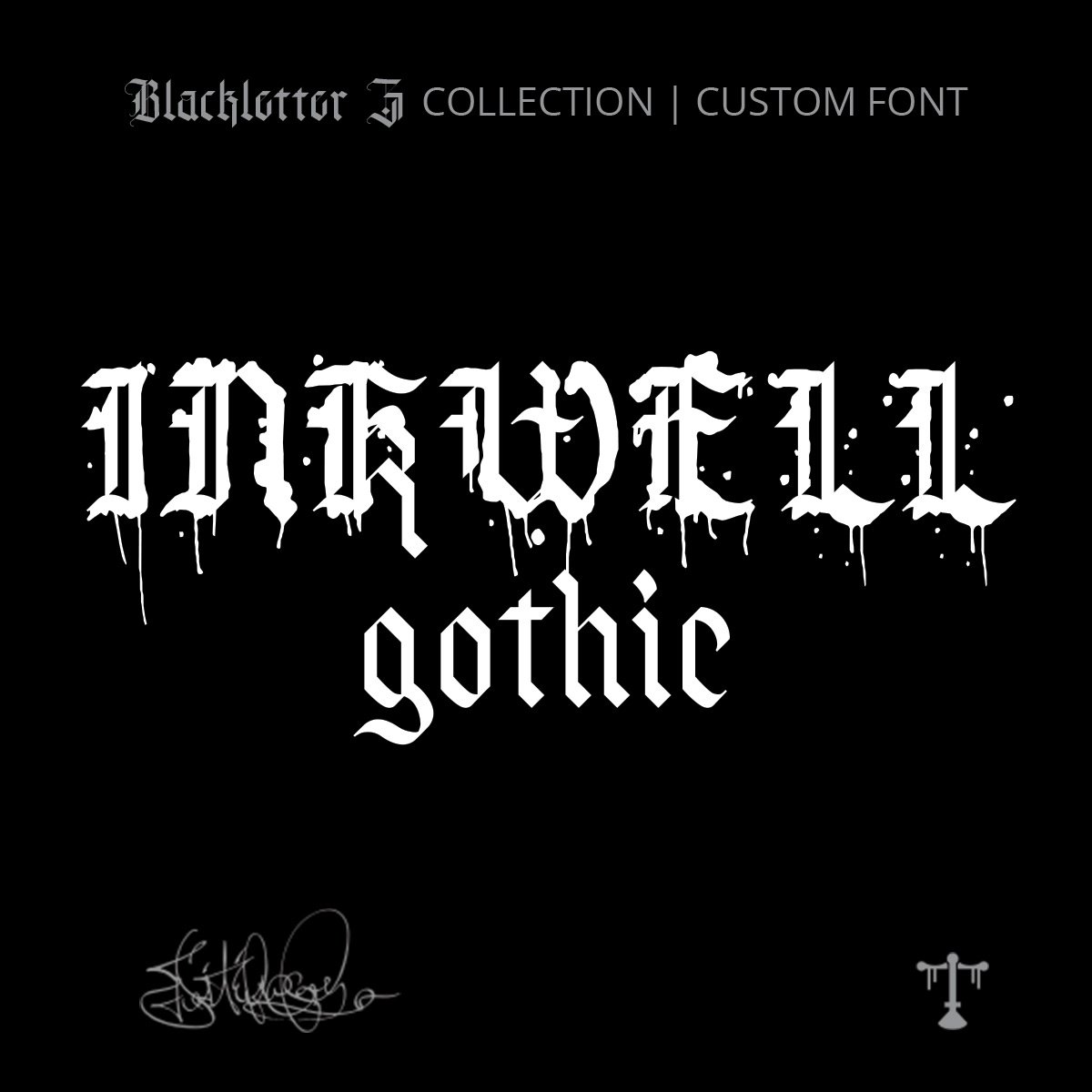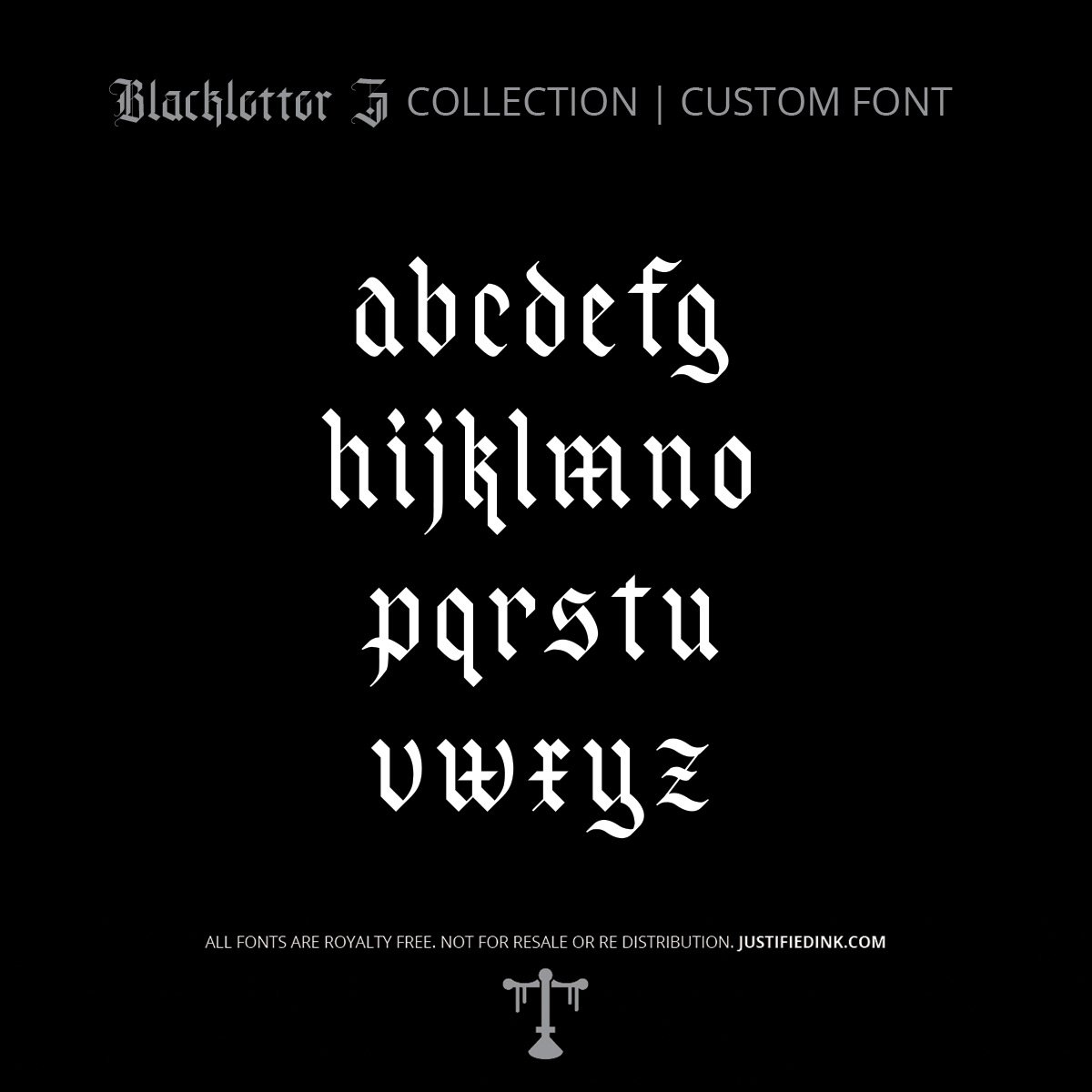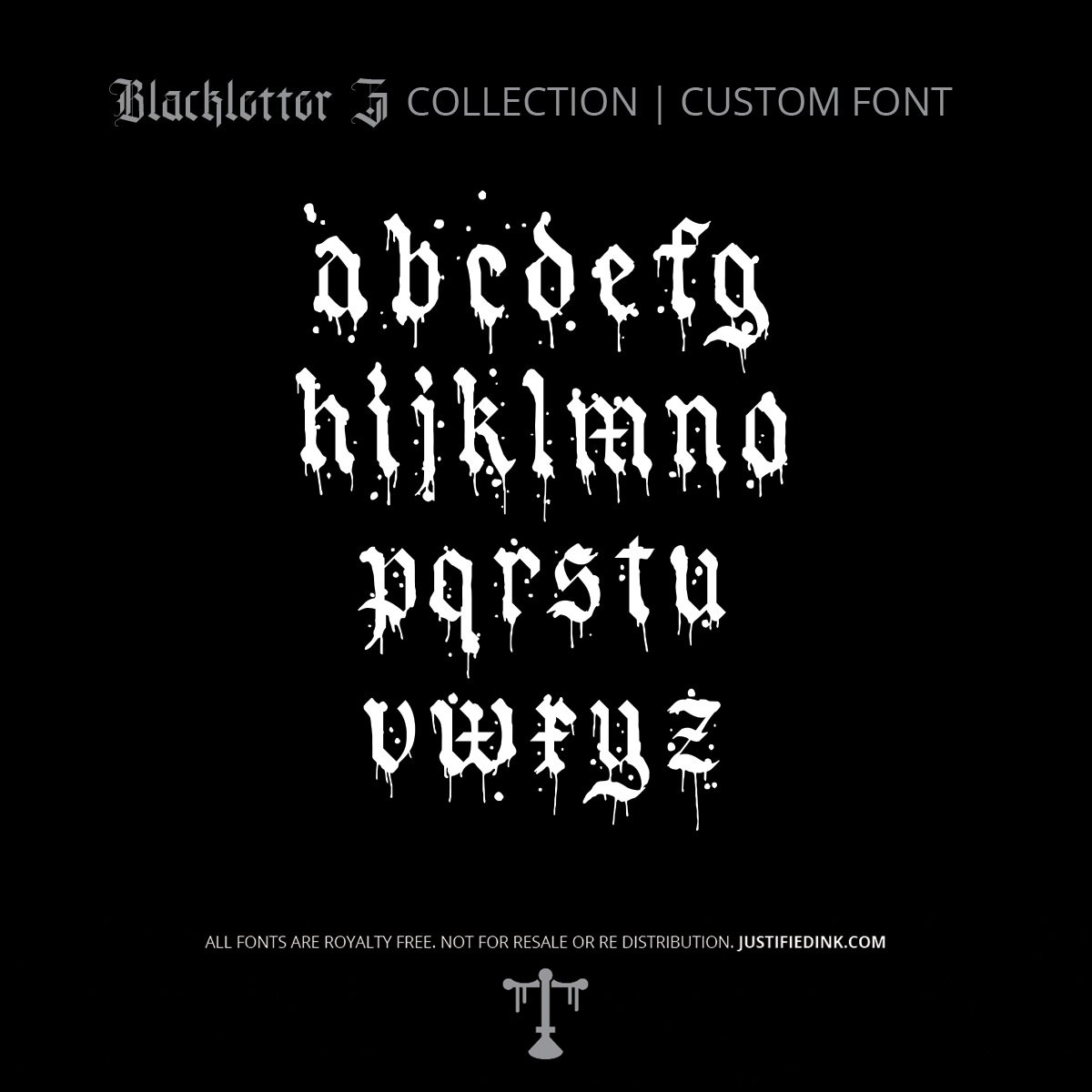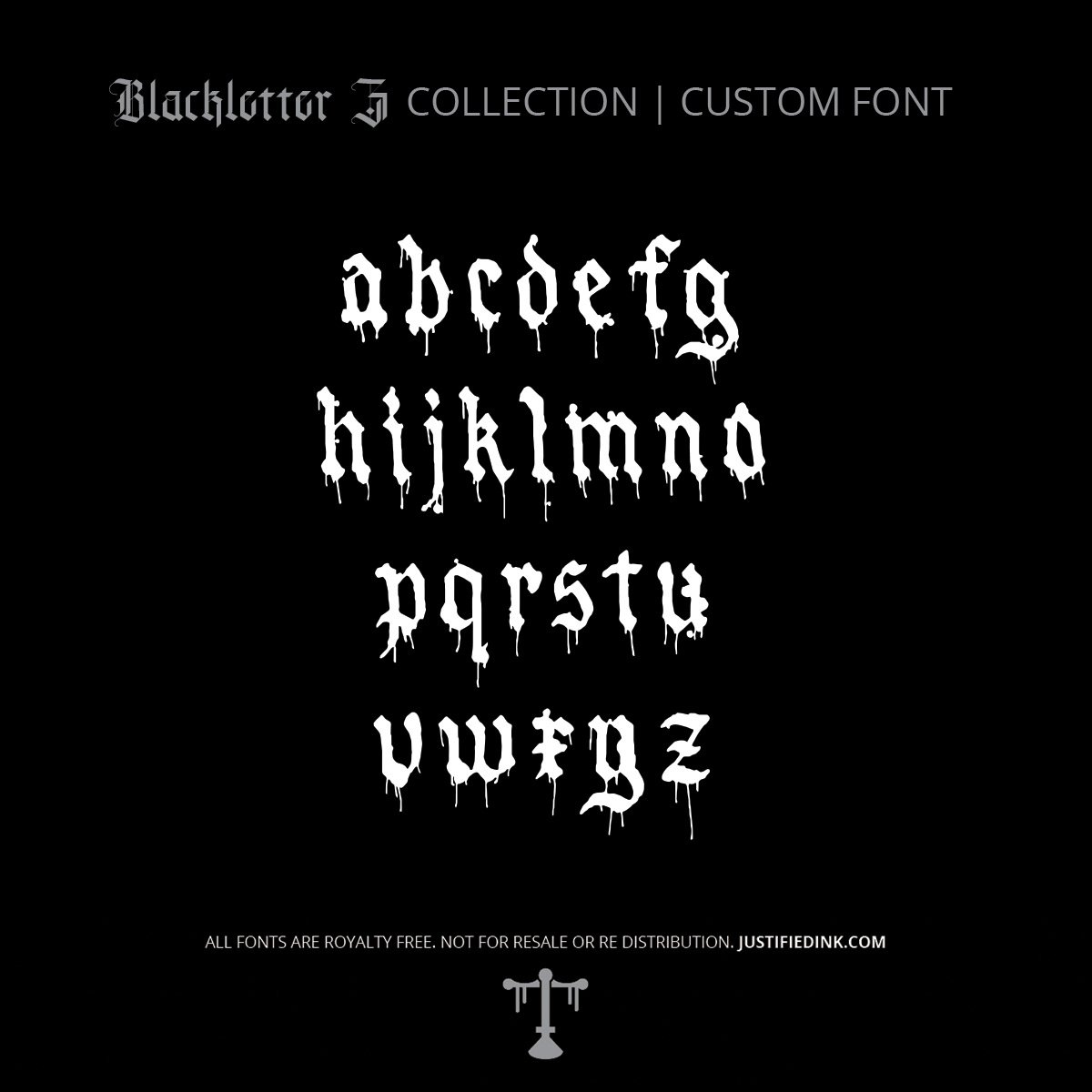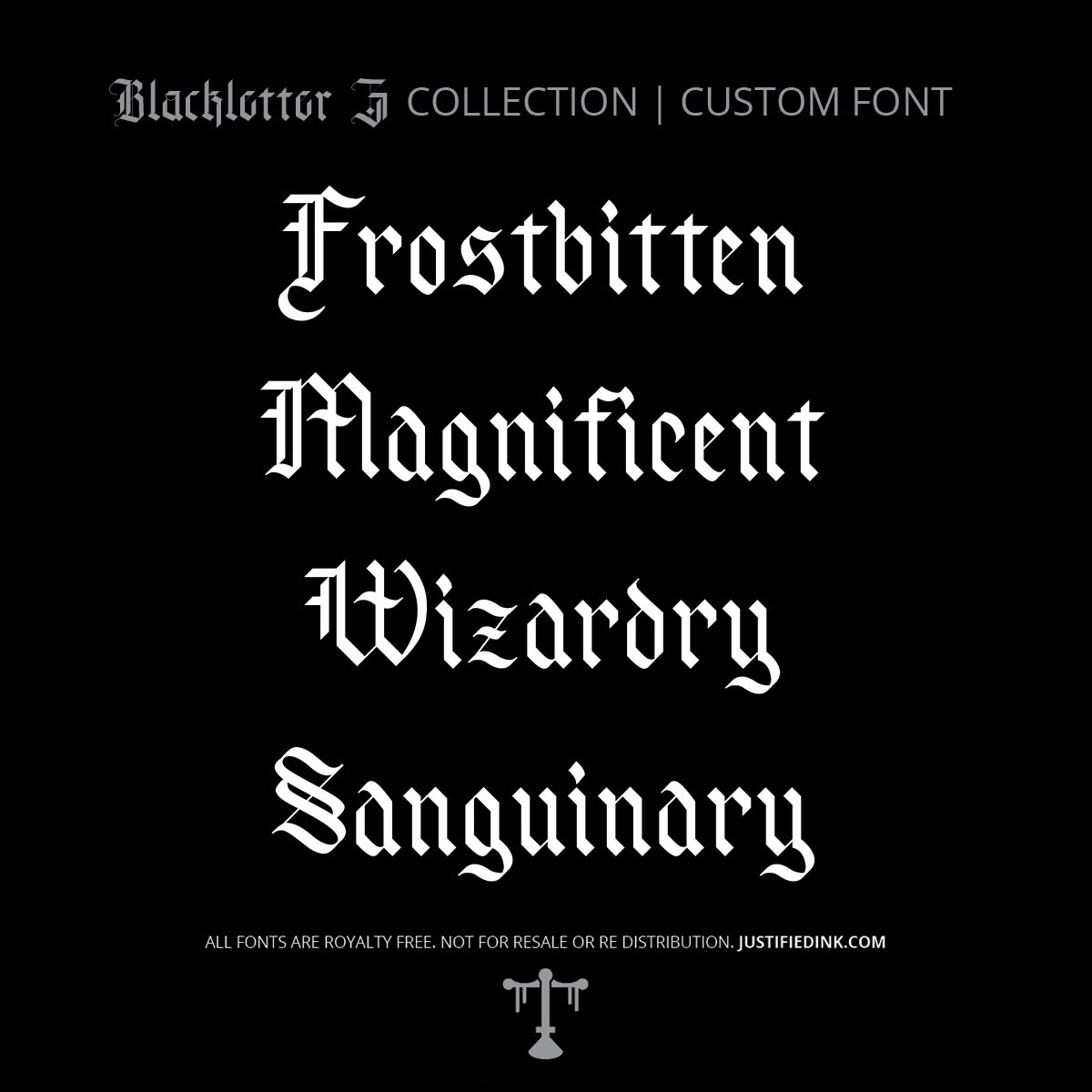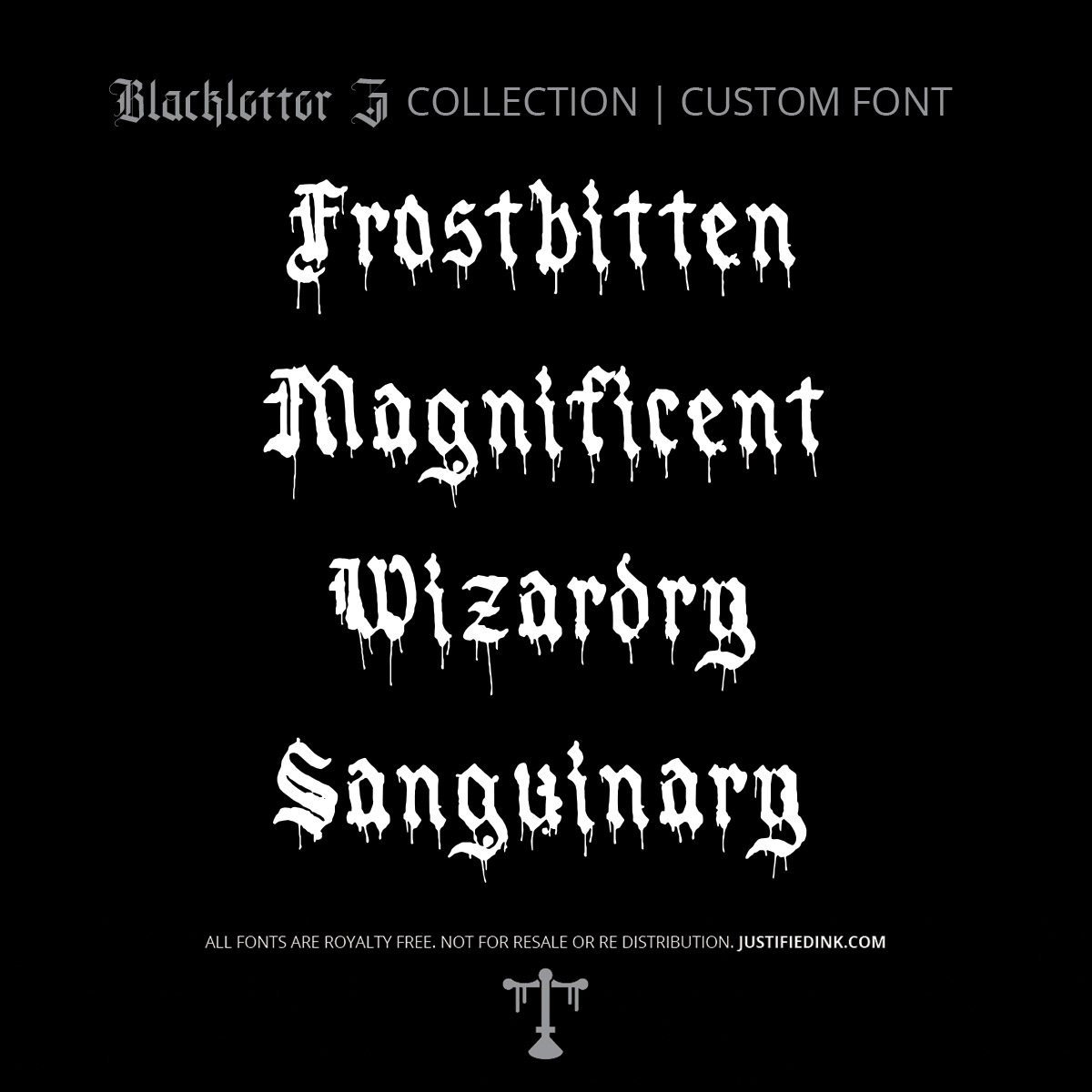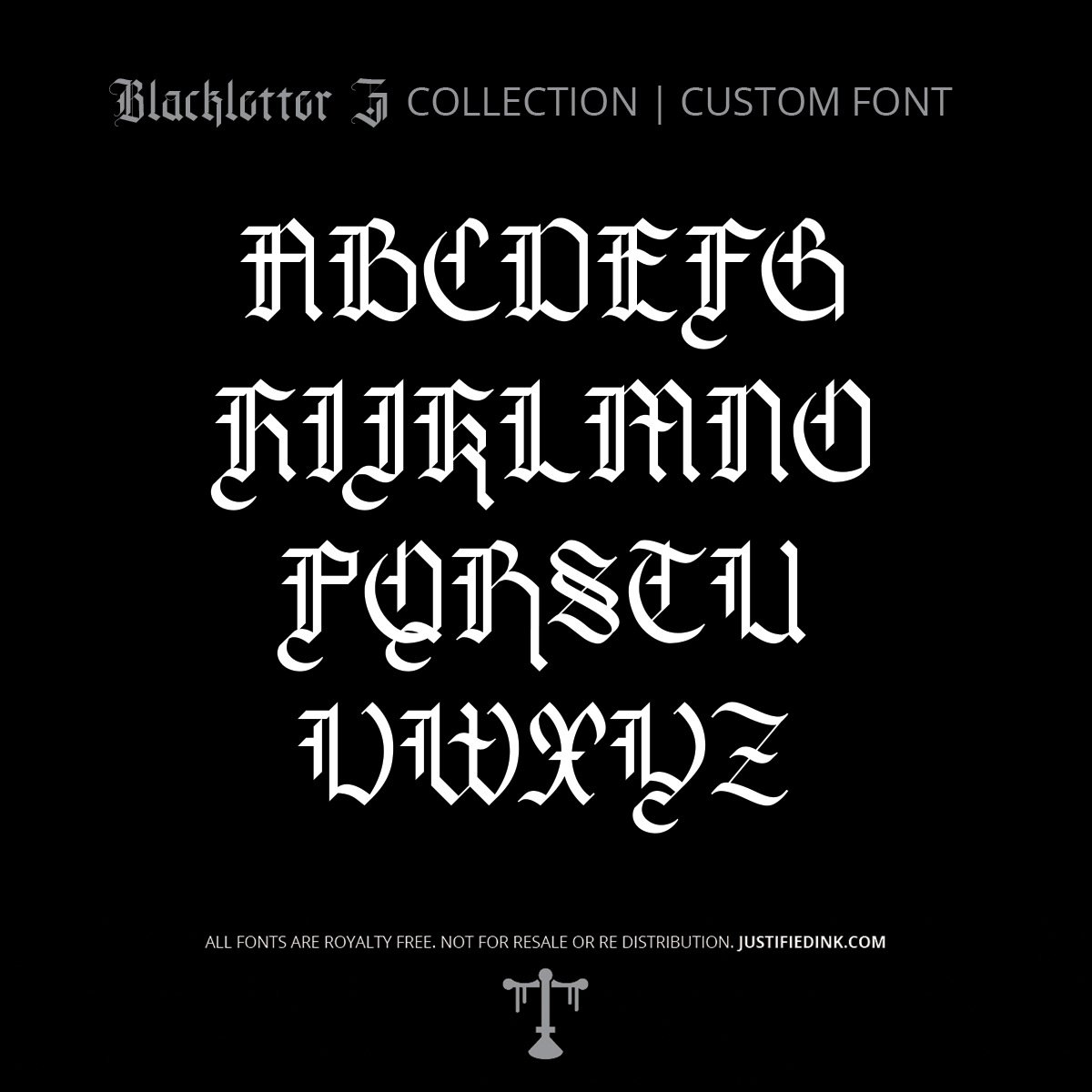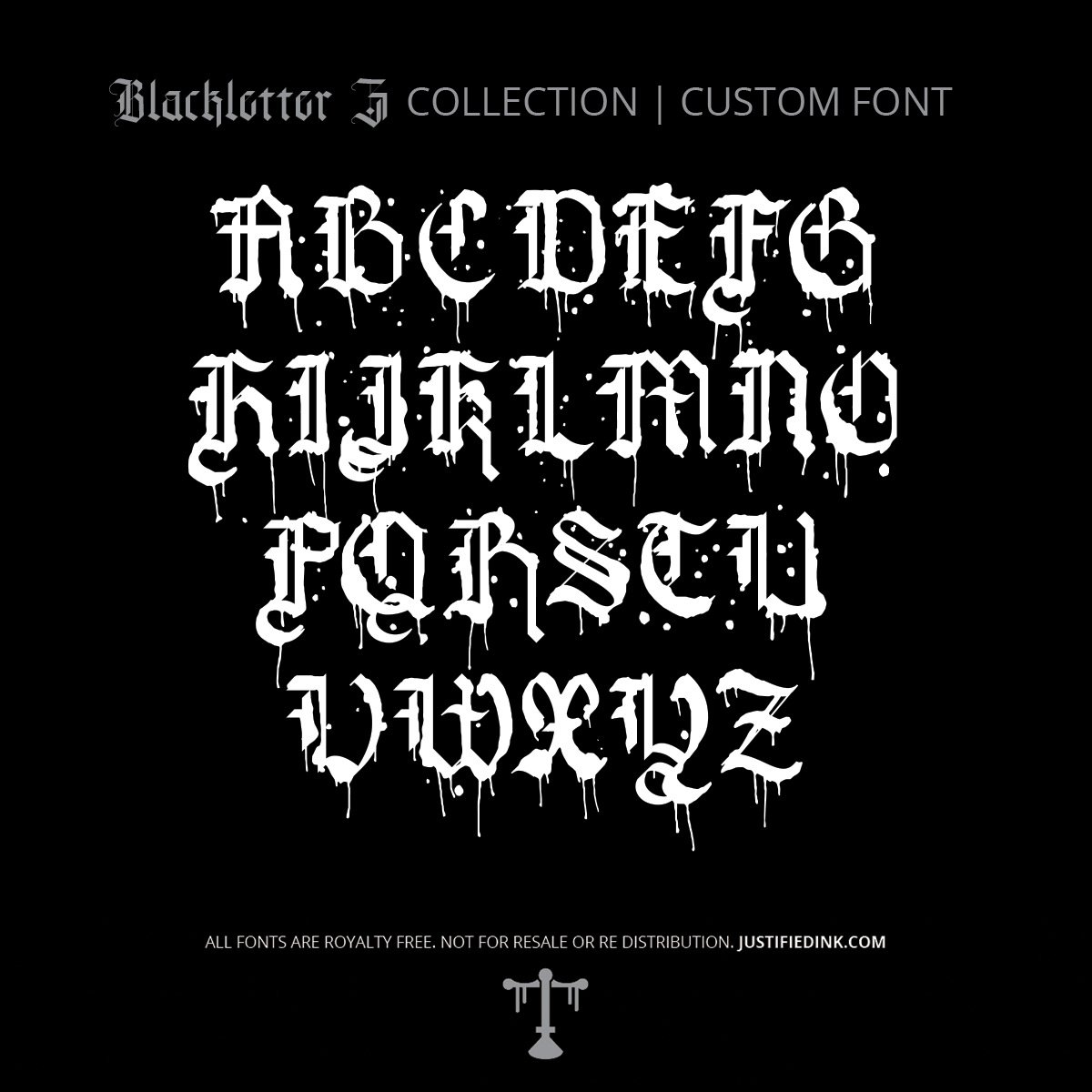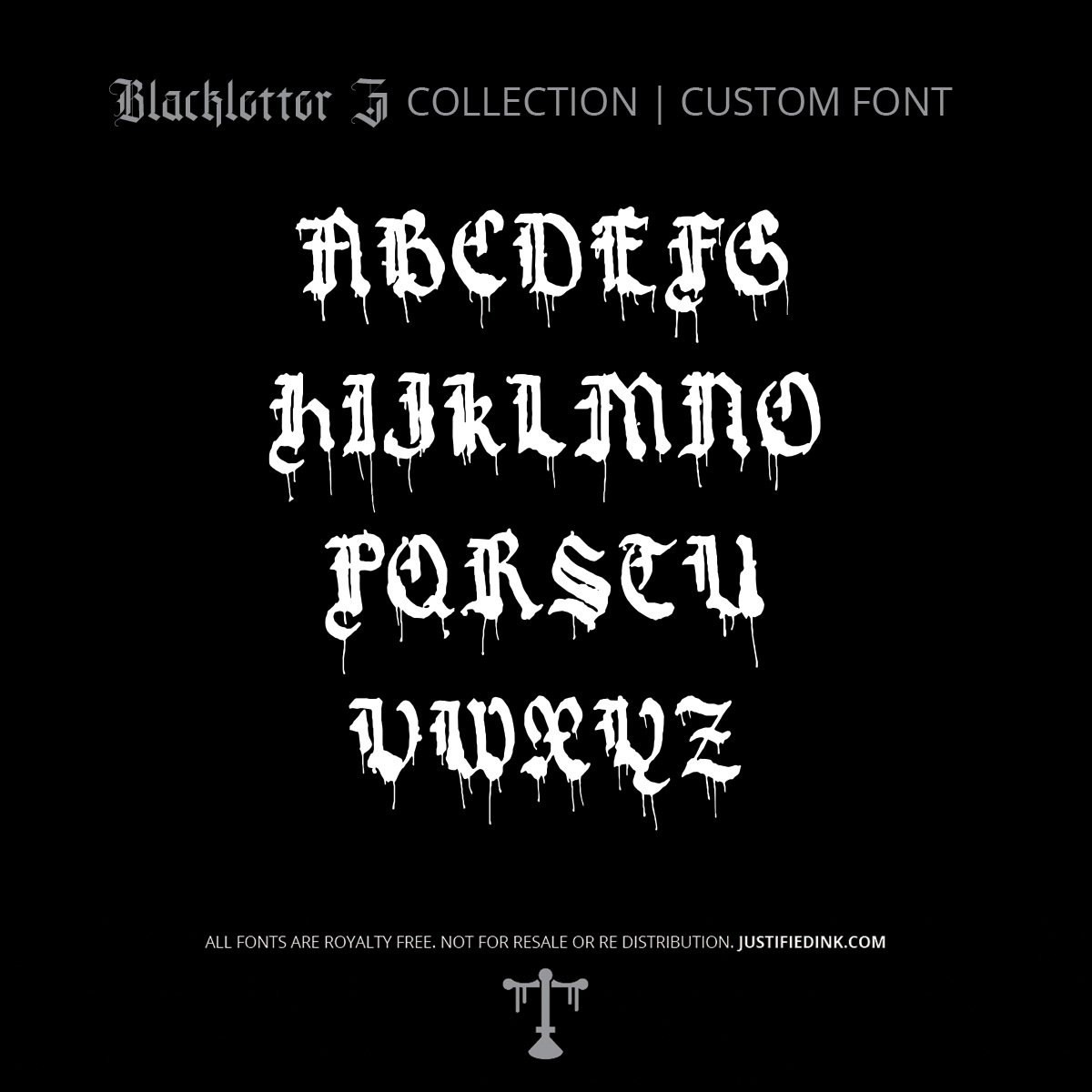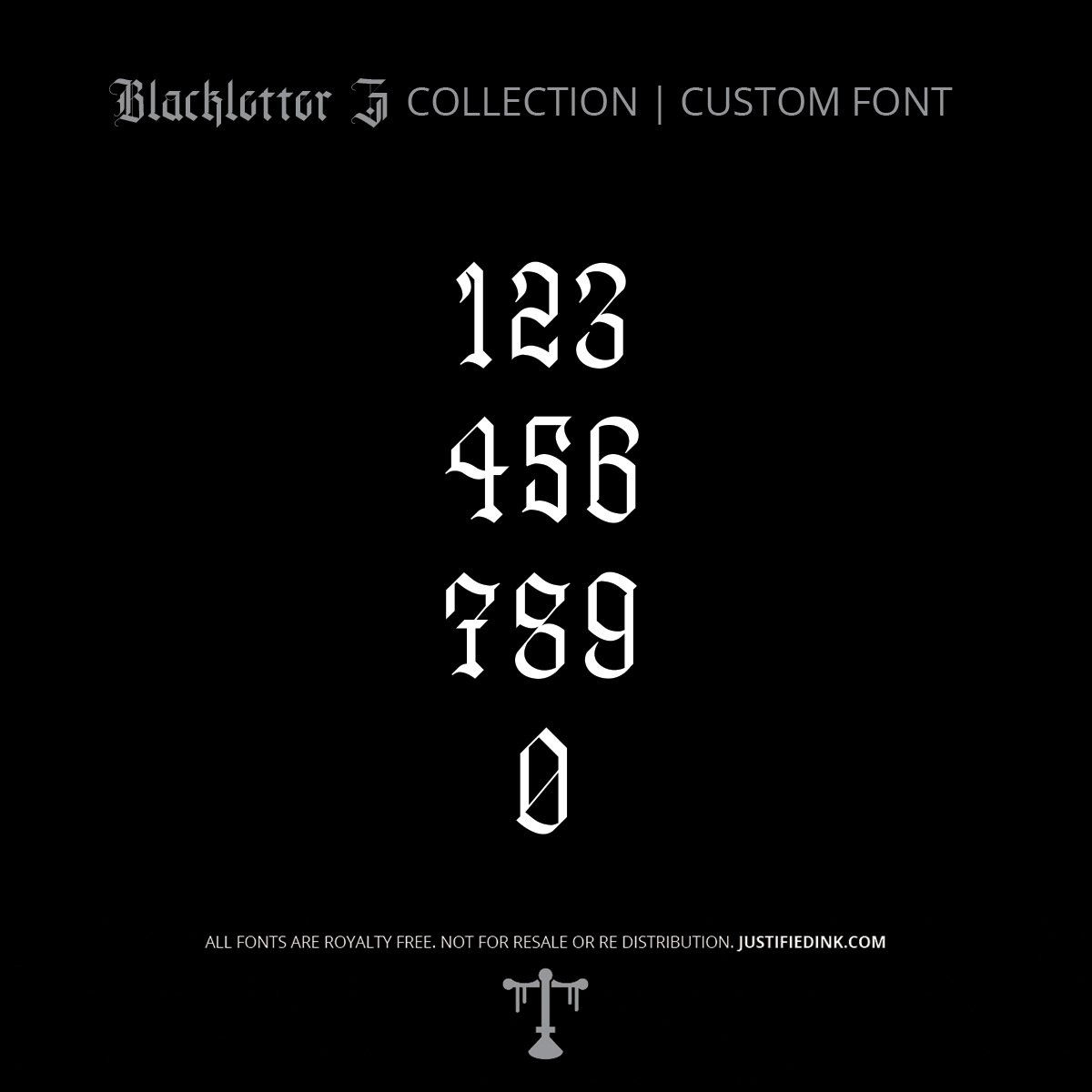
Inkwell Gothic (3 styles) - Custom Font
Inkwell Gothic (3 Styles) - Custom Font
Beauty Found in the Bleed.
Inkwell Gothic began as a complete reimagining of one of our earliest releases, Simple Gothic. Rather than refining the original, every letter was reconstructed from the ground up—stronger, cleaner, and more deliberate—while preserving the spirit that made it a favorite among lettering enthusiasts.
The collection explores a stage every calligrapher eventually encounters: the beautiful chaos of learning. Fresh ink pools where it shouldn't, strokes bleed beyond their boundaries, and imperfect pressure creates unexpected textures. What first appears to be disorder slowly reveals rhythm, character, and personality.
That philosophy comes alive across three distinct styles. The Regular version delivers crisp, disciplined gothic forms. Saturated introduces subtle bleeding and expressive imperfections while maintaining structure. Over Saturated embraces the raw energy of hand-drawn experiments, transforming drips, heavy ink, and controlled chaos into a finished typeface. There is method beneath the madness, and beauty hidden inside every mistake.
NAME: Inkwell Gothic
VAR: 3 STYLES (Regular, Saturated, Over Saturated)
Inkwell Gothic Font by Justified Ink was created for lettering artists, designers, tattooers, illustrators, and anyone drawn to expressive gothic typography that balances precision with beautifully controlled imperfection.